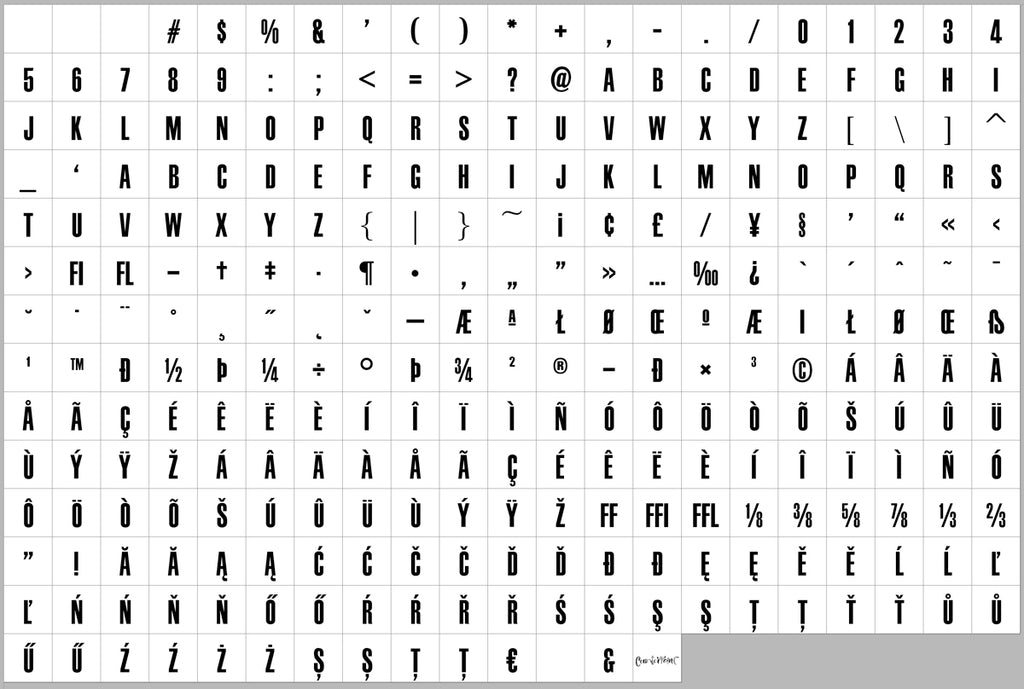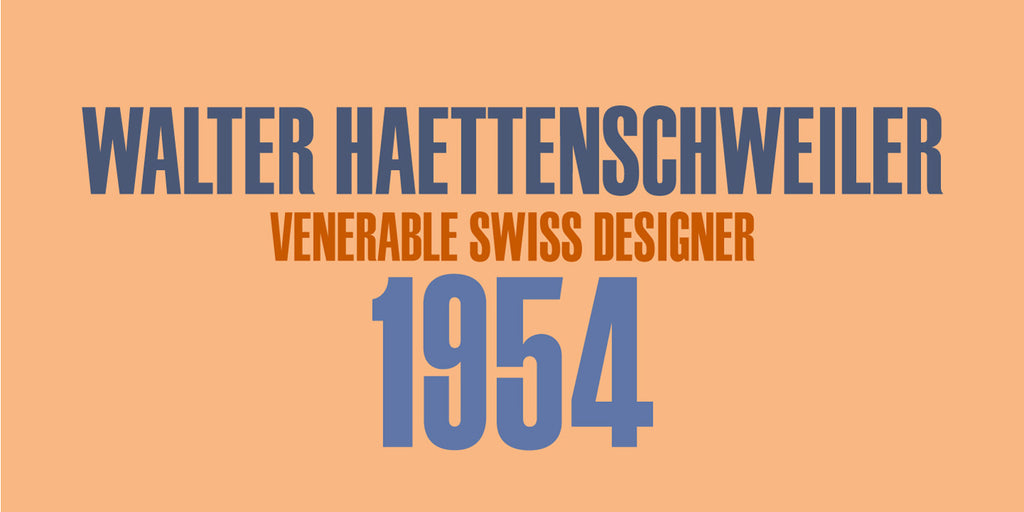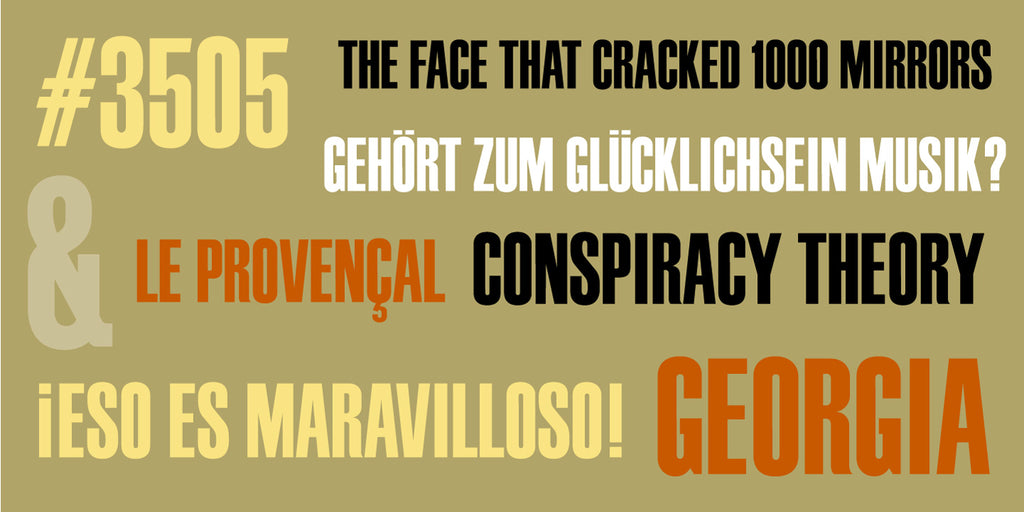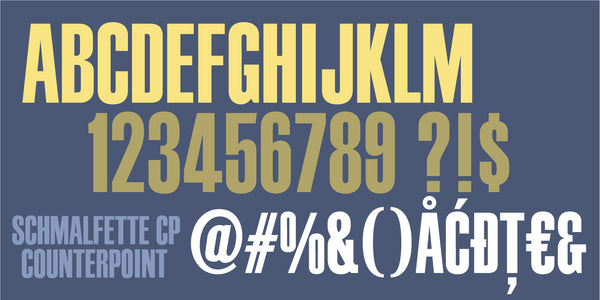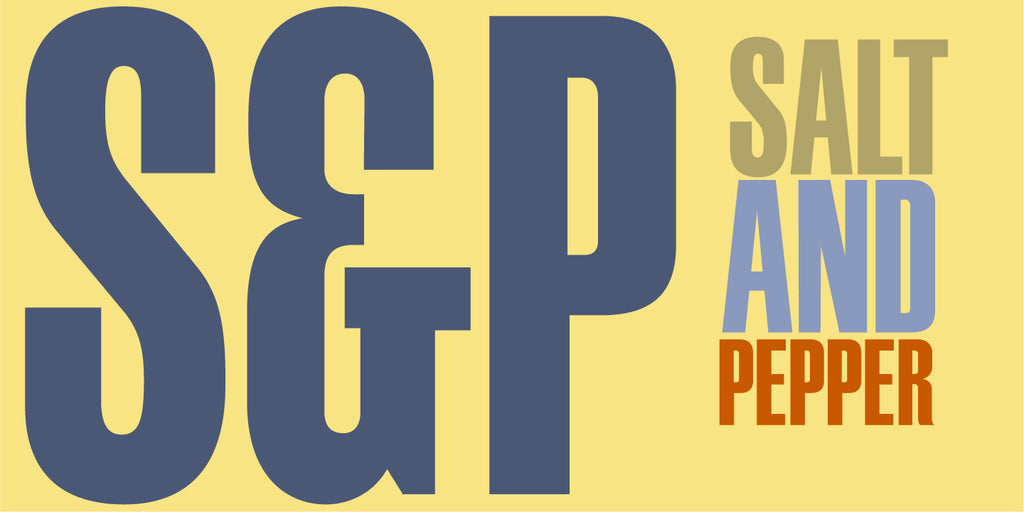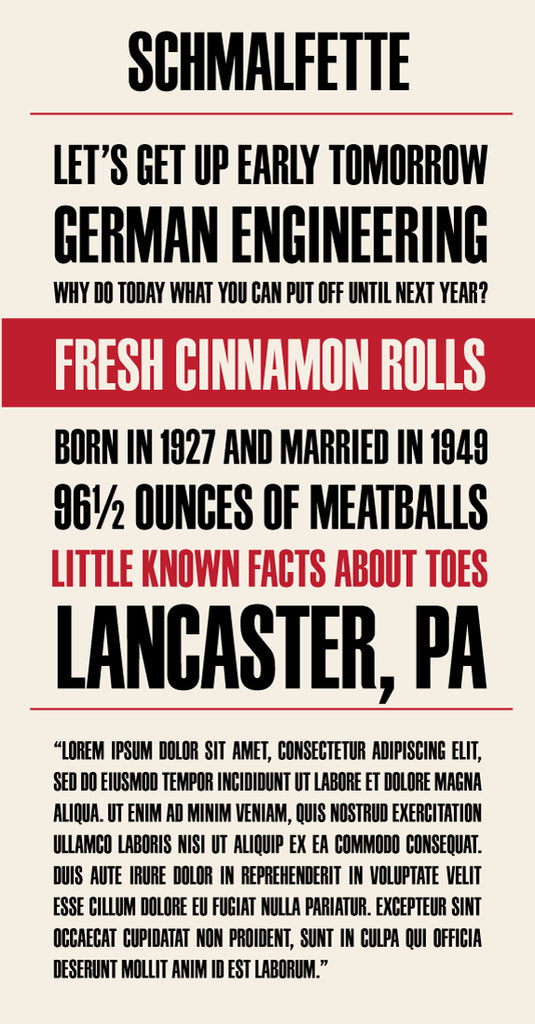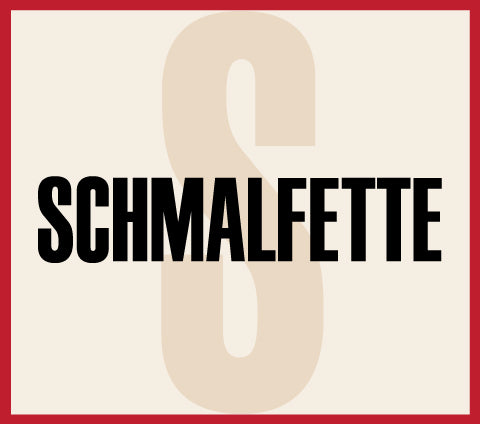
Schmalfette
Schmalfette is the result of another collaboration between designers Jason Walcott and Rob King. King suggested that Walcott revive this wonderful sans-serif typeface from the mid 1950s. Originally designed by Walter Haettenschweiler in 1954, Schmalfette Grotesk was used for many years in the German magazine "Twen". The typeface was notoriously hard to acquire at the time and graphic designers in the USA often resorted to cutting letters from the Twen magazines and reusing them in their own designs. At Rob King's suggestion, Jason Walcott has strived to recreate the most faithful digital revival possible of the original Schmalfette Grotesk so anyone who has ever searched for this typeface now has a version available that most closely resembles Haettenschweiler's original work.